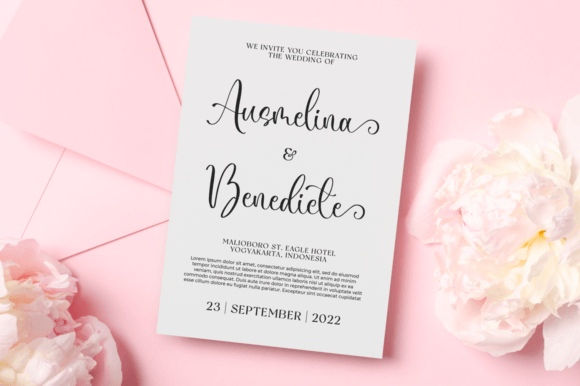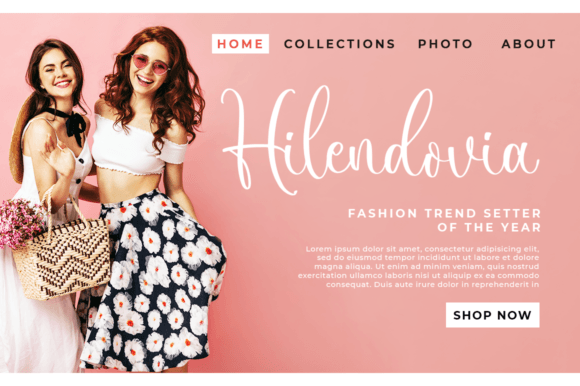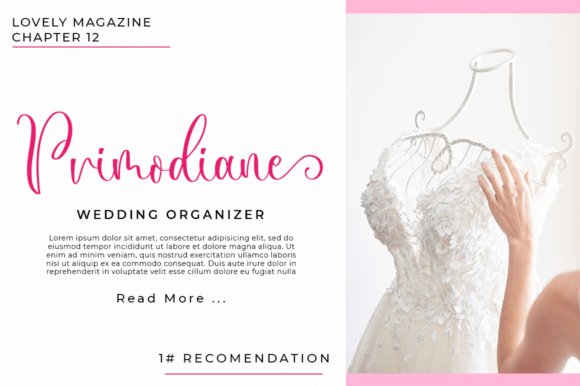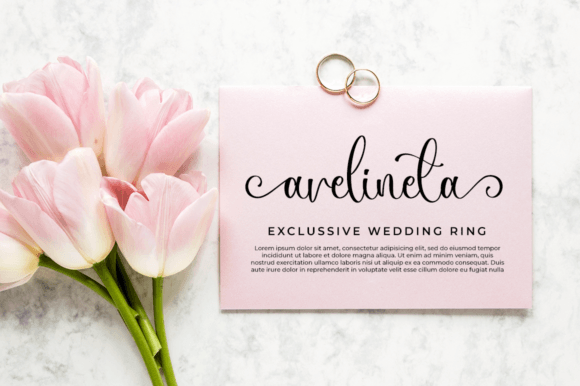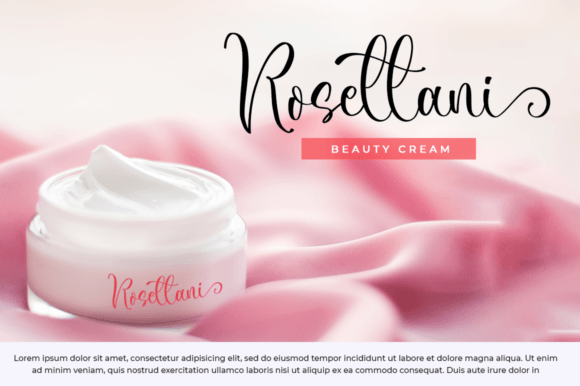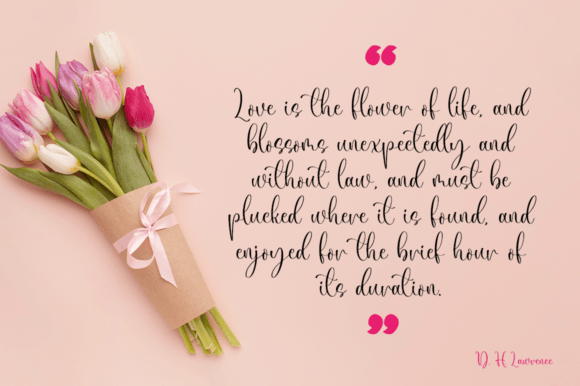
Introducing Heimadela Font: Elevate Your Designs with Elegance and Sophistication
In the world of typography, a font can make or break the aesthetic of a design. For those seeking a touch of elegance and refinement, Heimadela Font is an exquisite choice. This lovely and delicate script font is specifically crafted to bring a beautiful and refreshing look to your designs, making it perfect for designers and crafters alike.
The Beauty of Heimadela Font
Heimadela Font is a masterpiece of typographic artistry, boasting a unique and sophisticated style that exudes class and poise. Its delicate strokes and intricate details make it an ideal choice for designs that require a touch of luxury and refinement. Whether you’re working on a branding project, wedding invitation, or packaging design, Heimadela Font is sure to impress.
One of the standout features of Heimadela Font is its PUA (Private Use Area) encoding. This means that you can access all of the glyphs and swashes with ease, giving you unparalleled creative control over your designs. With PUA encoding, you can effortlessly navigate the font’s extensive character set, including alternate letters, ligatures, and ornaments.
Heimadela Font offers a world of design possibilities, limited only by your imagination. Use it to create:
- Stunning wedding invitations and stationery
- Elegant branding and packaging designs
- Beautiful quotes and typographic art
- Delicate greeting cards and gift tags
- Sophisticated magazine and editorial designs
Why Choose Heimadela Font?
With so many fonts available, why choose Heimadela Font? Here are just a few compelling reasons:
- Unique and distinctive style: Heimadela Font boasts a one-of-a-kind design that will set your work apart from the crowd.
- Ease of use: PUA encoding makes it easy to access and use the font’s extensive character set.
- High-quality design: Heimadela Font is crafted with attention to detail, ensuring a high level of quality and consistency.
- Versatility: This font is suitable for a wide range of design applications, from digital to print.
Tips for Using Heimadela Font
To get the most out of Heimadela Font, here are a few expert tips:
- Experiment with different sizes and colors: Heimadela Font looks stunning in a variety of sizes and colors, so don’t be afraid to experiment and find the perfect combination for your design.
- Mix and match with other fonts: Pair Heimadela Font with complementary fonts to create visually striking typographic combinations.
- Pay attention to spacing and kerning: As with any font, proper spacing and kerning are essential to achieving a polished and professional look.
In conclusion, Heimadela Font is a truly exceptional script font that offers a unique blend of elegance, sophistication, and creative freedom. With its PUA encoding and extensive character set, this font is perfect for designers and crafters seeking to elevate their designs to new heights. Whether you’re working on a personal project or a client’s brief, Heimadela Font is sure to impress.